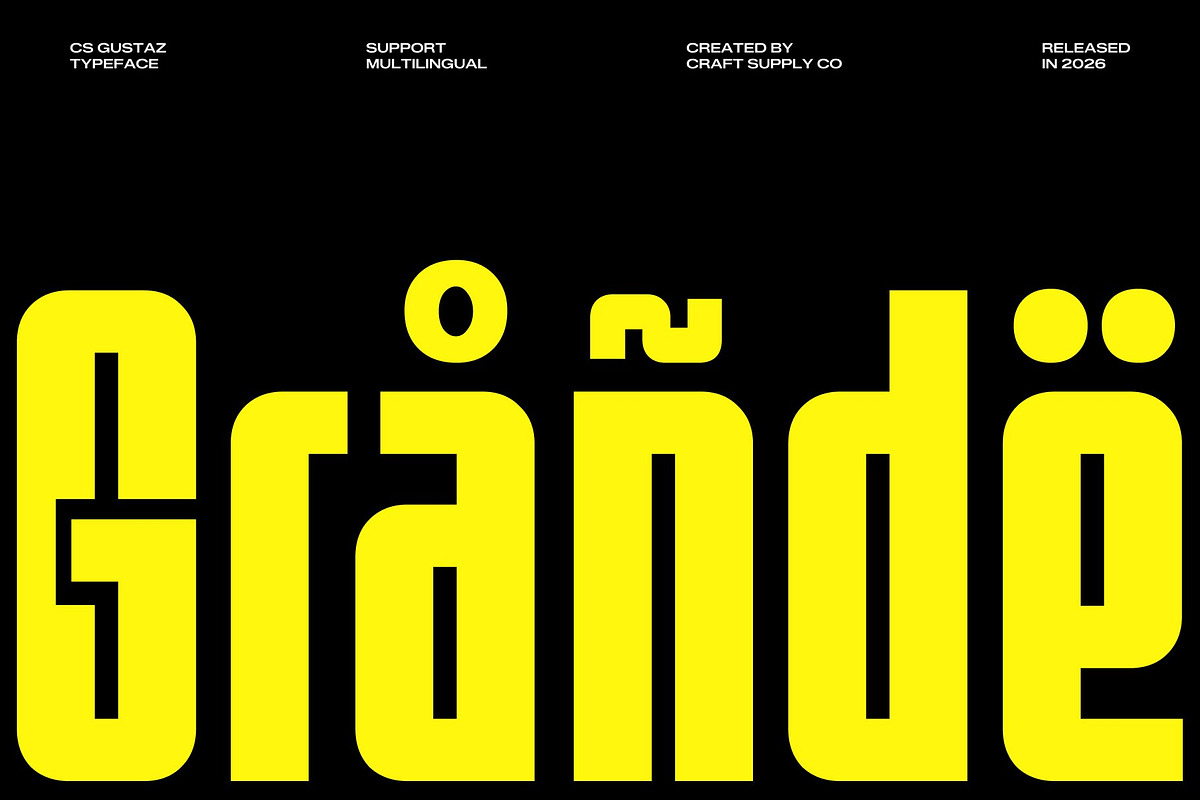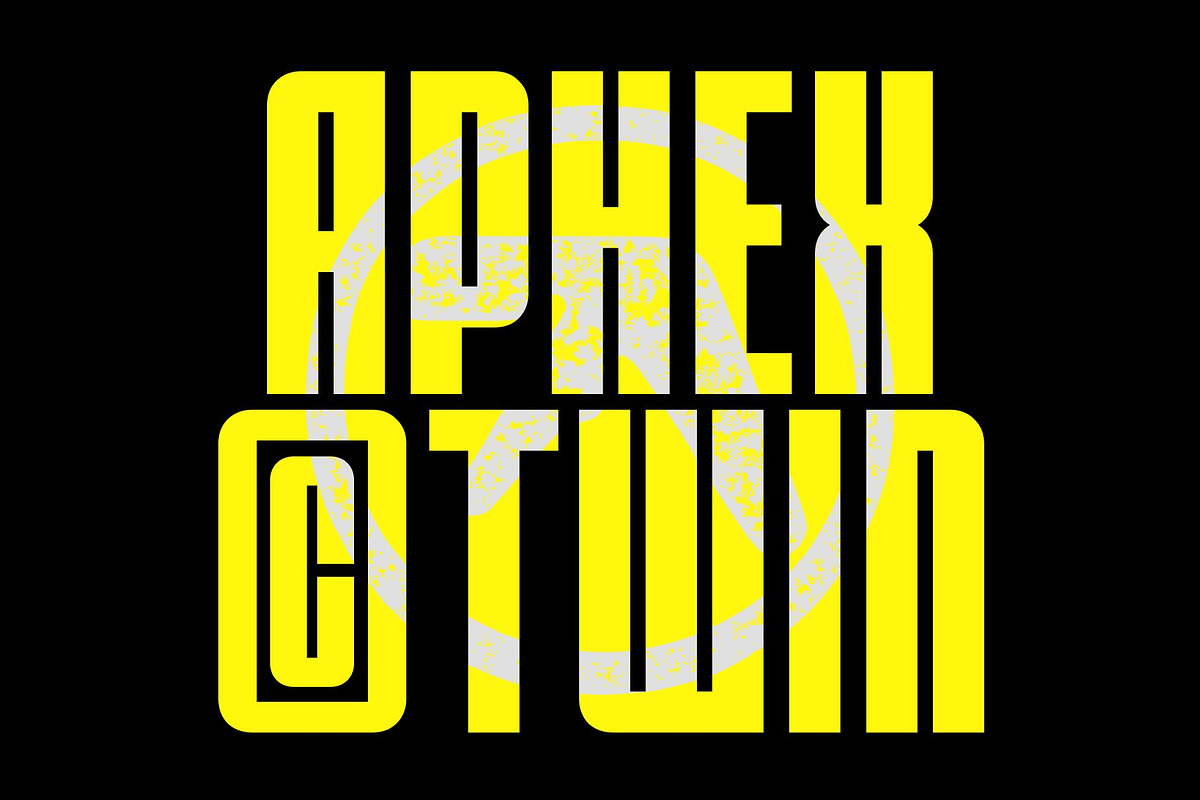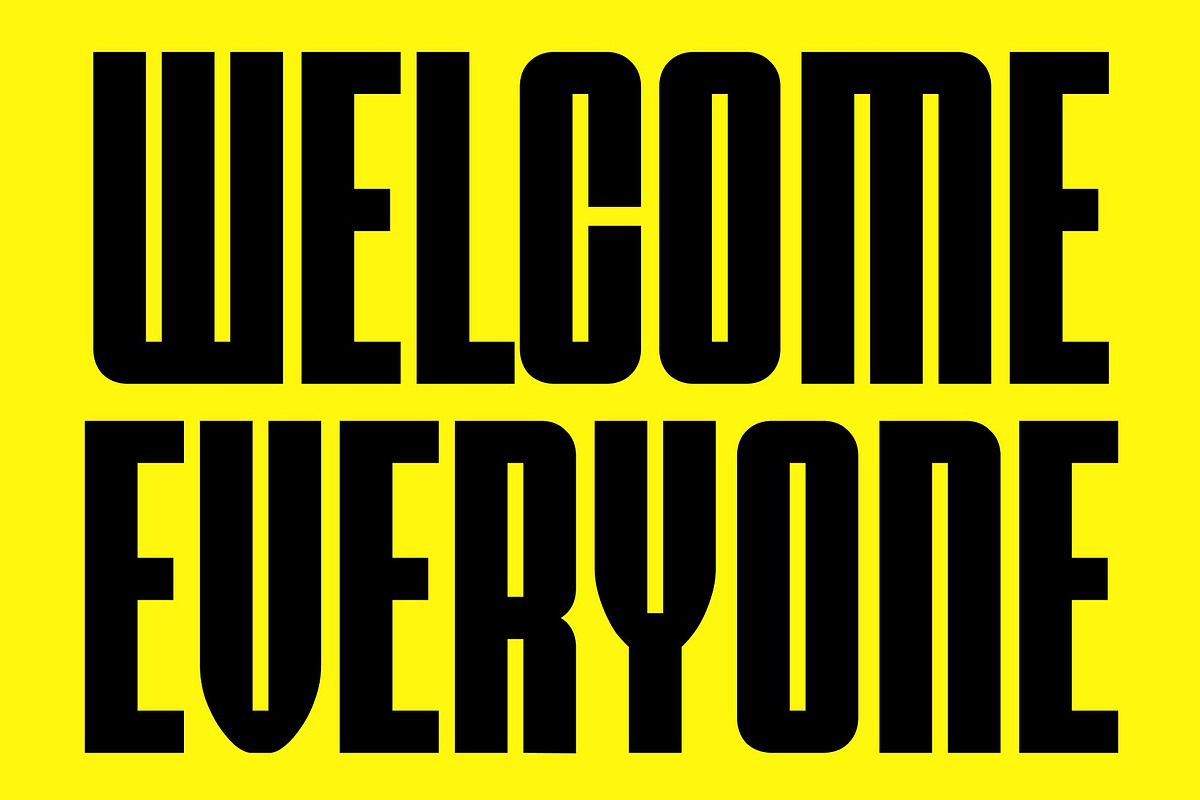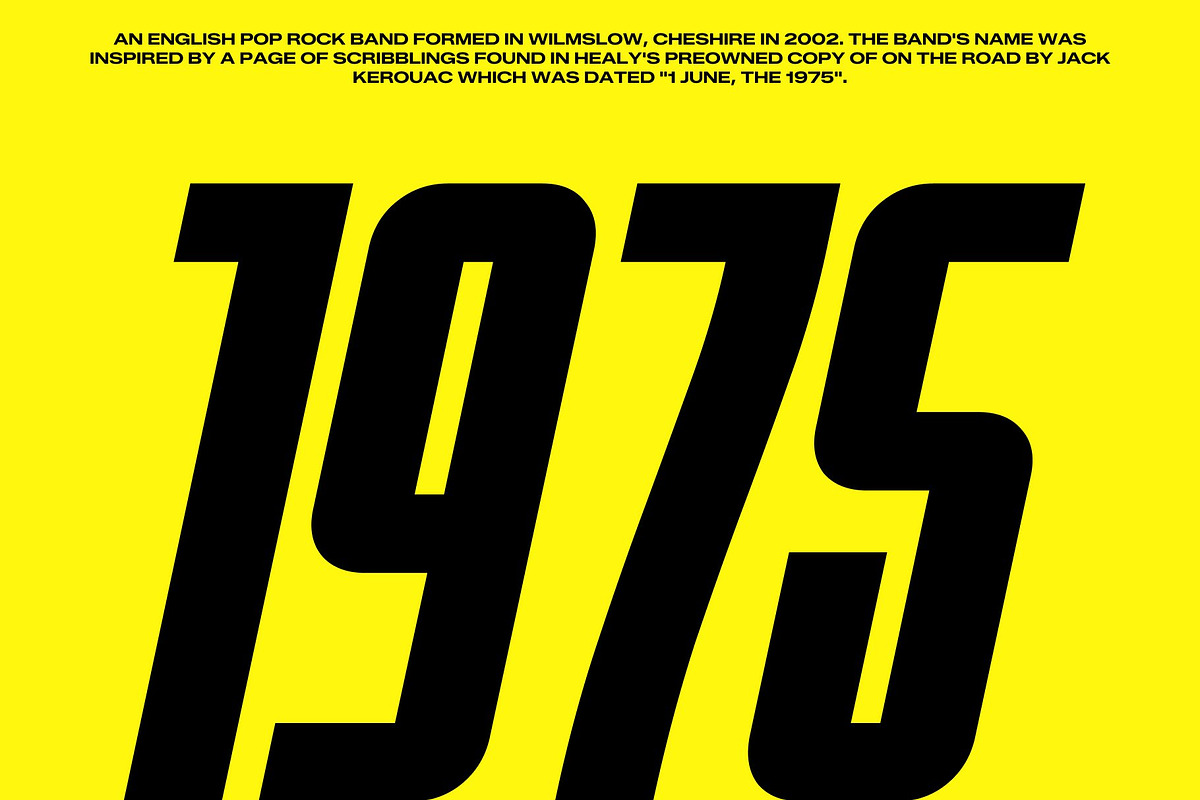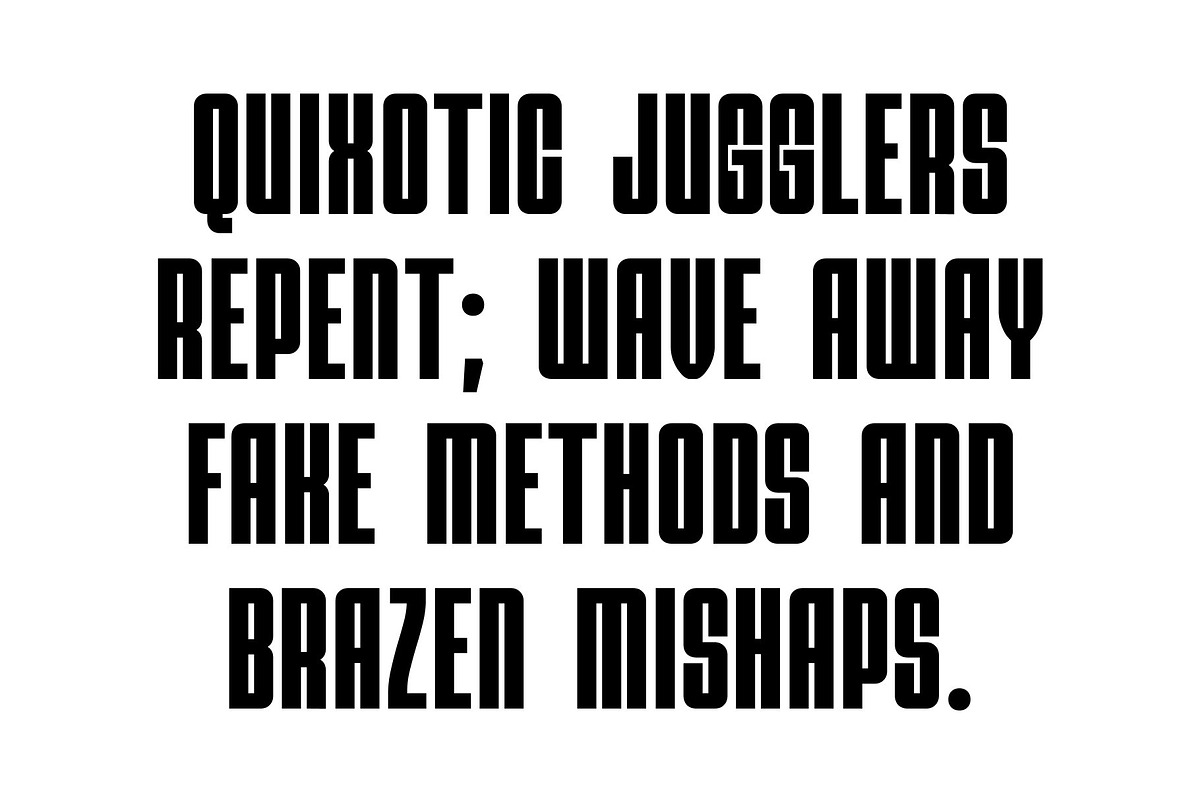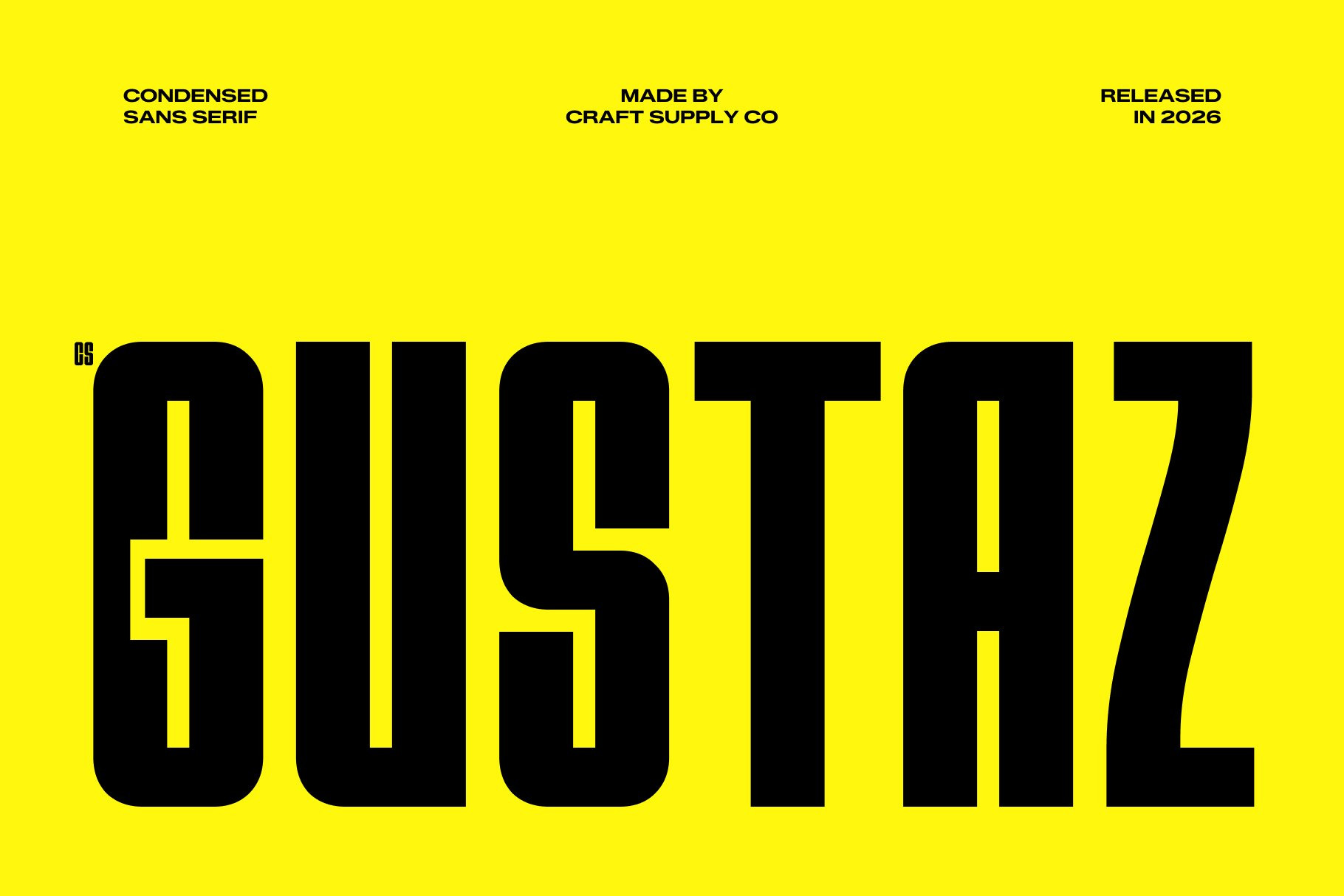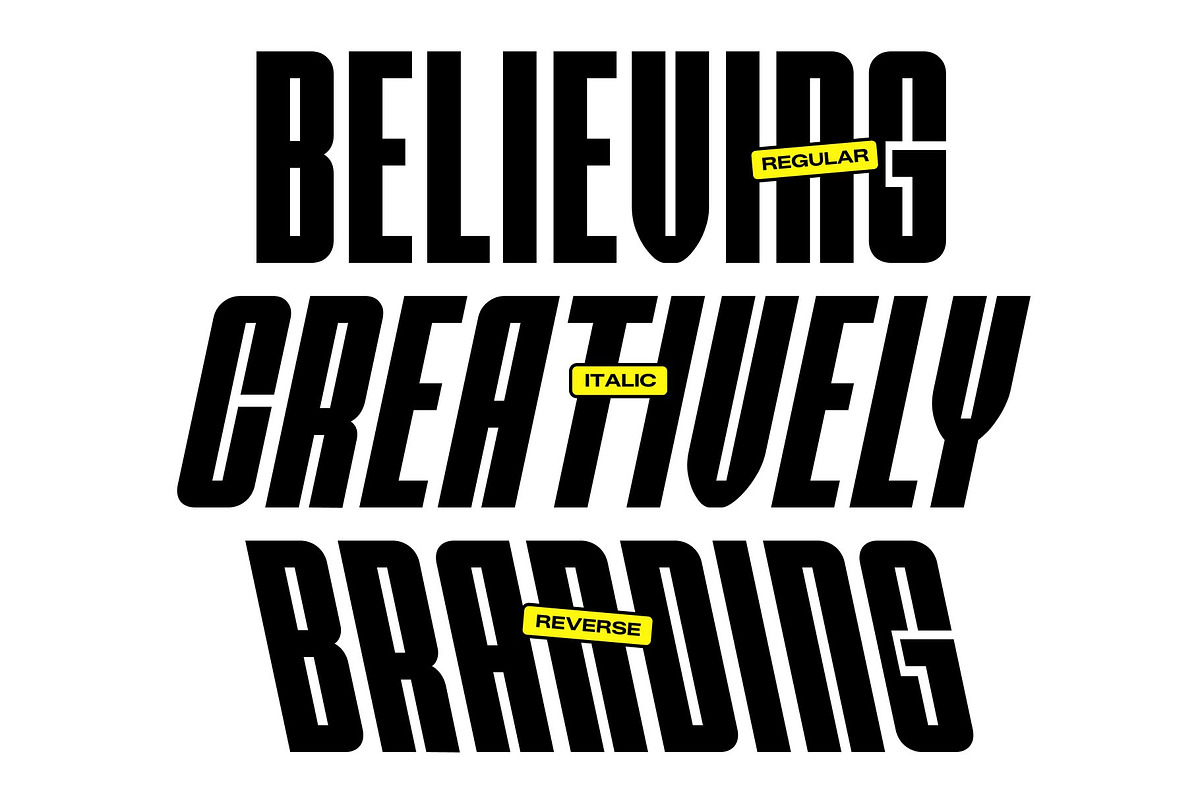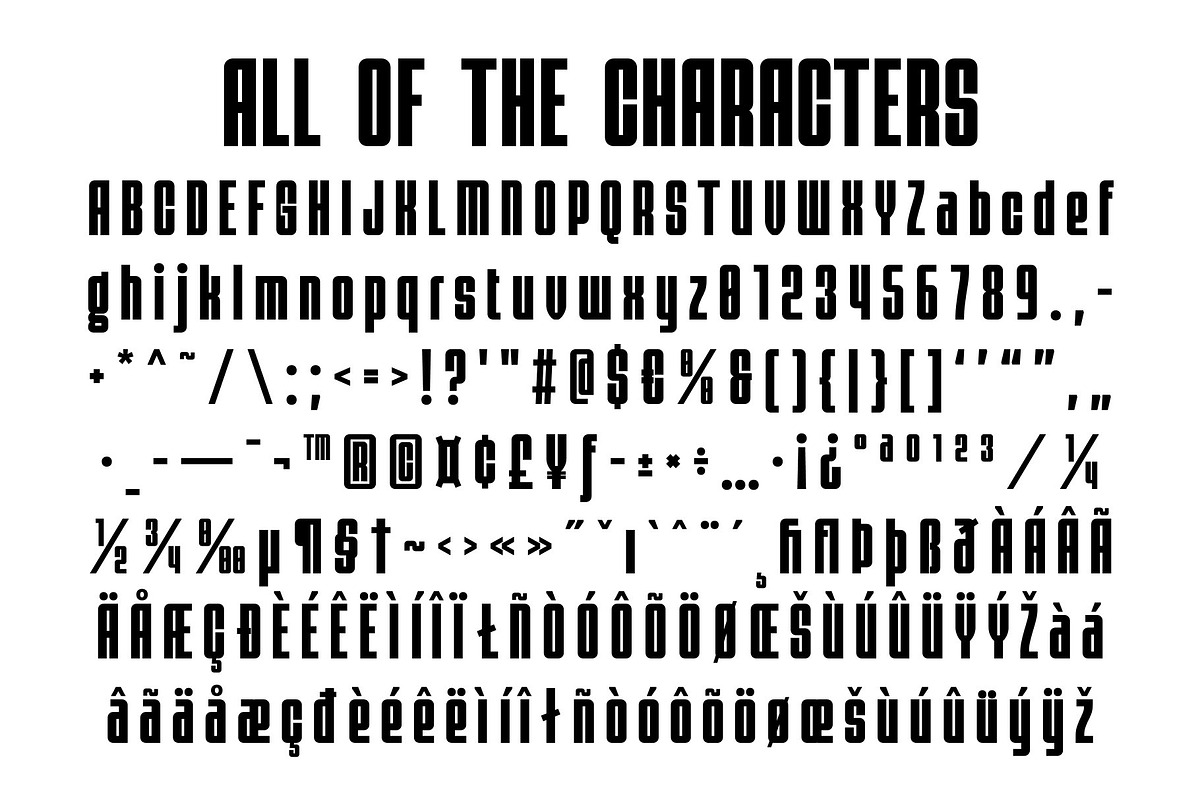
CS Gustaz – Condensed Font
CS Gustaz – Modern Condensed Display Font with Industrial Boldness
Modern Condensed Display Font with Strong Visual Impact This is a modern condensed display font built to create powerful visual impact in tight spaces. With its bold structure and industrial-inspired character, this typeface transforms headlines into commanding statements. It is designed for creators who need typography that feels confident, efficient, and unmistakably modern.
Engineered for Tight and Dynamic Layouts The condensed proportions allow more text to fit into narrow compositions while preserving clarity and balance. Each letterform is carefully crafted to appear tall, compact, and highly legible, ensuring strong readability even in dense layouts. This efficiency makes this font perfect for posters, banners, and impactful titles.
Industrial Character with Clean Precision This font combines sturdy strokes and geometric forms to create a strong industrial aesthetic. The clean design keeps the font modern and versatile, while the bold shapes add a sense of strength and authority. This balance helps designs feel both professional and visually powerful.
Perfect for Headlines, Posters, and Branding From bold advertising and editorial headlines to modern branding and digital campaigns, this font adapts effortlessly across creative projects. Its blend of readability, compact efficiency, and industrial boldness ensures your typography stands out with strength, clarity, and contemporary style.